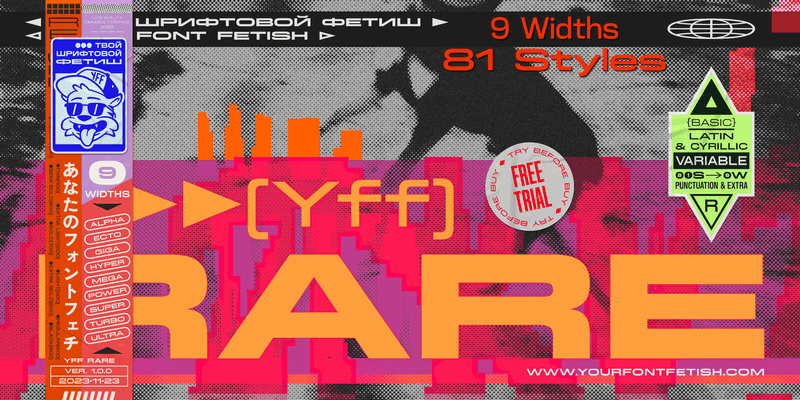
YFF Rare
YFF RARE is a large multi-width variable typeface, created based on fonts from French newspapers of the late 19th century and foundry catalogs of the early 20th century. A wide range from ultra condensed to ultra expanded styles allows you to significantly diversify your design project, posters and magazine headlines. Ideal for logos both on packaging and in digital designs. Suitable for designing user interfaces, movie titles and can easily become the face of your brand. YFF RARE typeface features a large number of decorative elements in the form of arrows, geometric shapes, fractions, indexes and other signs that significantly diversify and enliven your layouts. The typeface includes 81 fonts with 9 unique widths, each of which has 9 typefaces from Thin to Black. In addition to this, there is one large variable font, where everything is combined into one convenient font file with two axes — the width of the letter and weight. Initially, YFF RARE was supposed to be a simple font for everyday accidental tasks, but with each iteration it became overgrown with wider and wider styles on the one hand, and narrow ones on the other. In the process of creation, futuristic grotesques of the 60s of the last century in the spirit of Horizontal (designer M. Miedinger, 1965) and Eurostile (designer A.Novarese, 1962) had no small influence on it, although the final font lost its excessive "squariness". In the current version, the font supports basic Latin and basic Cyrillic, but in future updates it will get support for extended Latin and extended Cyrillic. Stay tuned! The period of work on the YFF RARE typeface is from 2020 to 20
23. Font designer: Alexander Kapusta (type design studio Your Font Fetish).